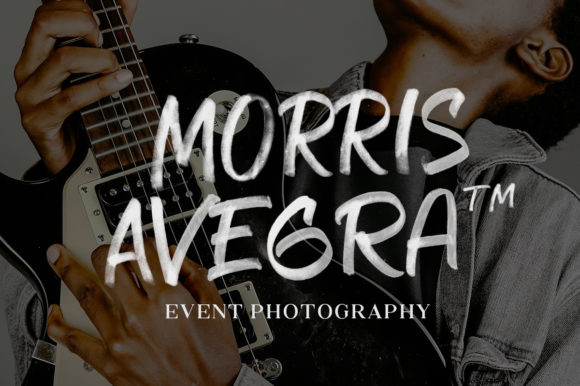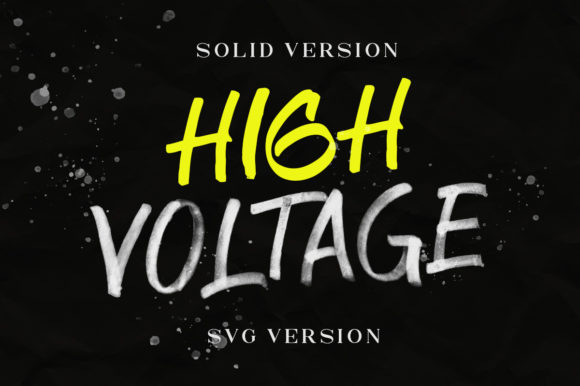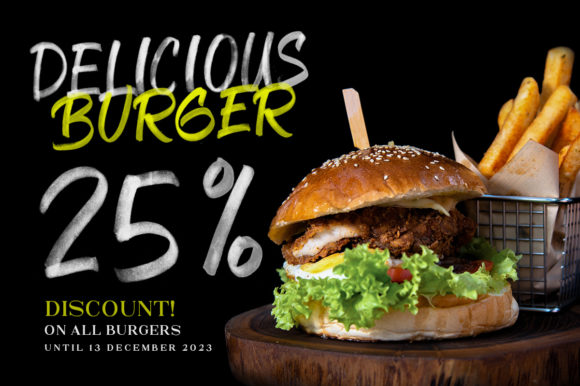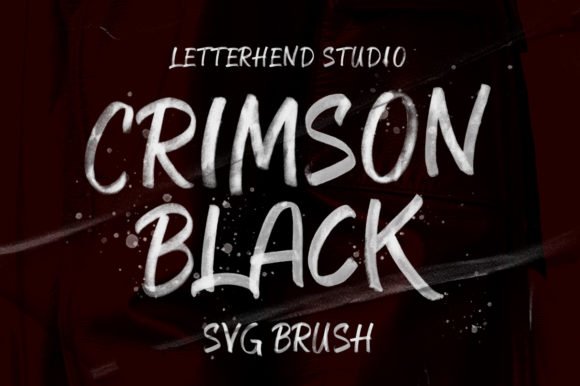
Introduction to Crimson Black Font
Crimson Black is a bold, brushed display font.
Powerful and strong, this font will make each of your design ideas stand out .
Key Features of Crimson Black Font
Why Choose Crimson Black Font?